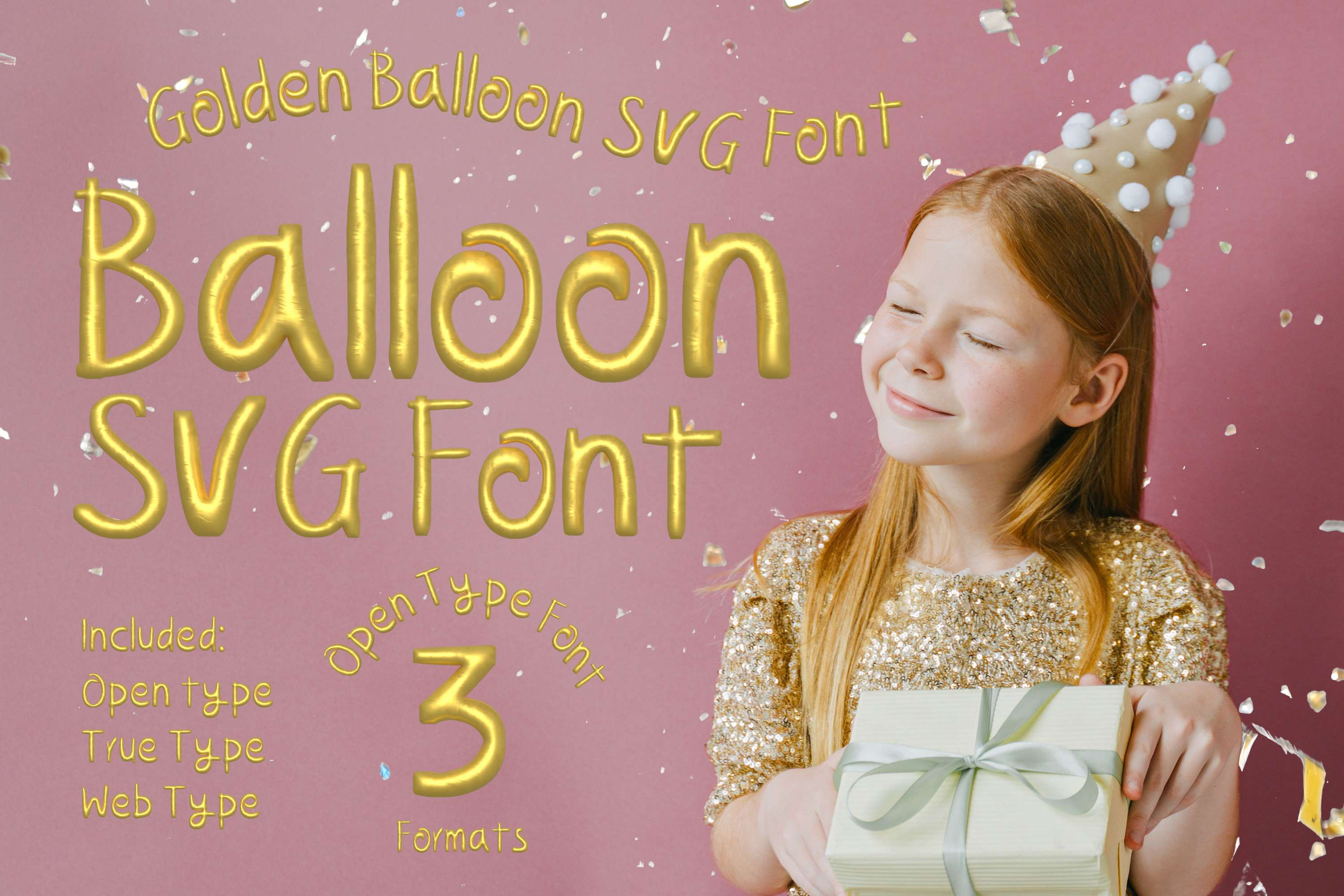
Balloon SVG Font Golden
Discover the golden touch of Balloon SVG Font. Compatible with websites and all software, including Adobe Photoshop and Illustrator, it supports OpenType-SVG (OTF), TrueType (TTF), and WebFont (WOFF) formats. Available in Regular, it includes uppercase, lowercase, numerals, punctuations, and symbols. Ideal for personal and commercial projects, this gold font is perfect for holiday designs, birthday party photography, invitations, posters, websites, and more.